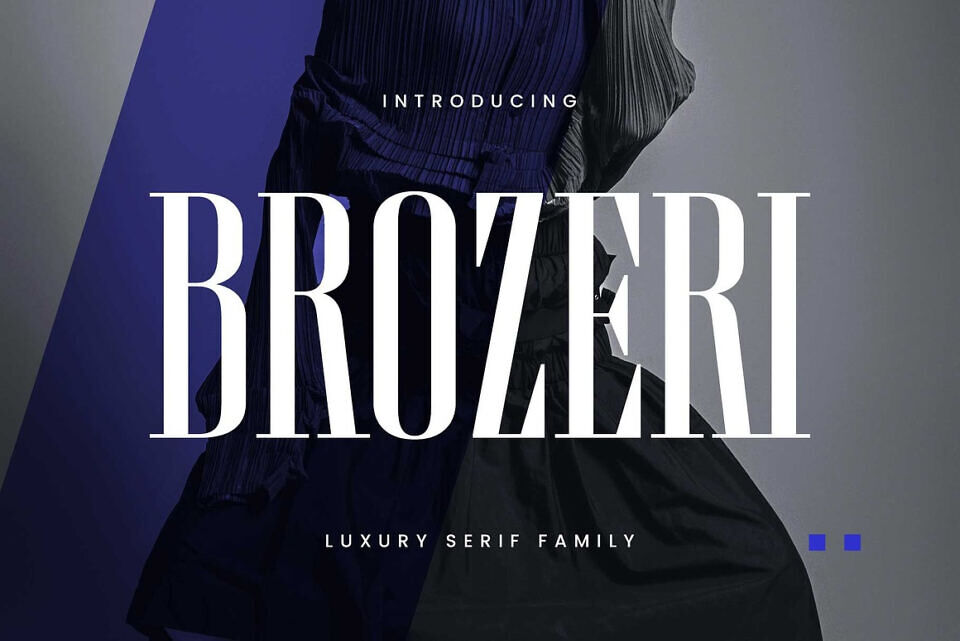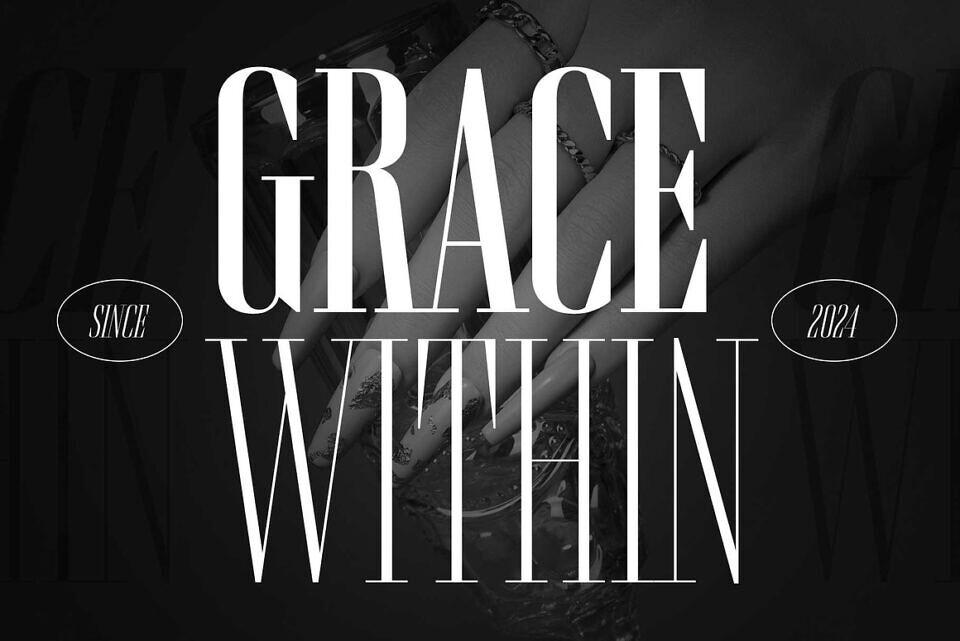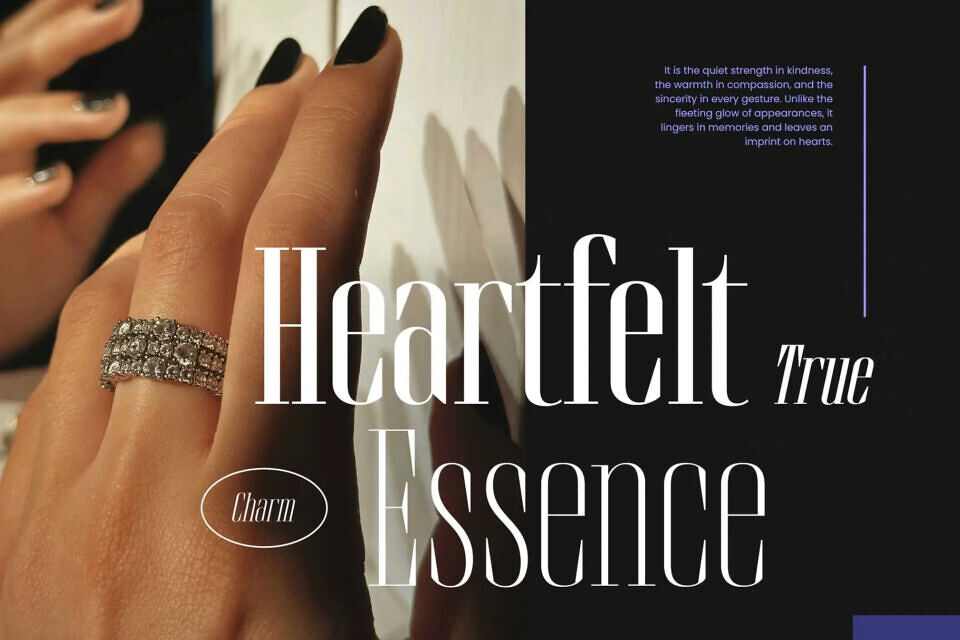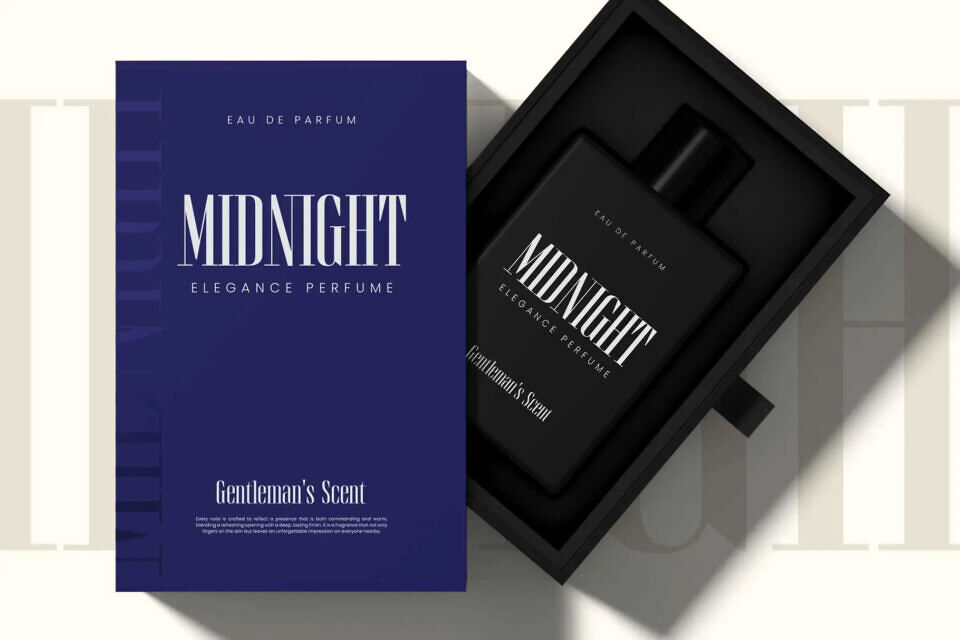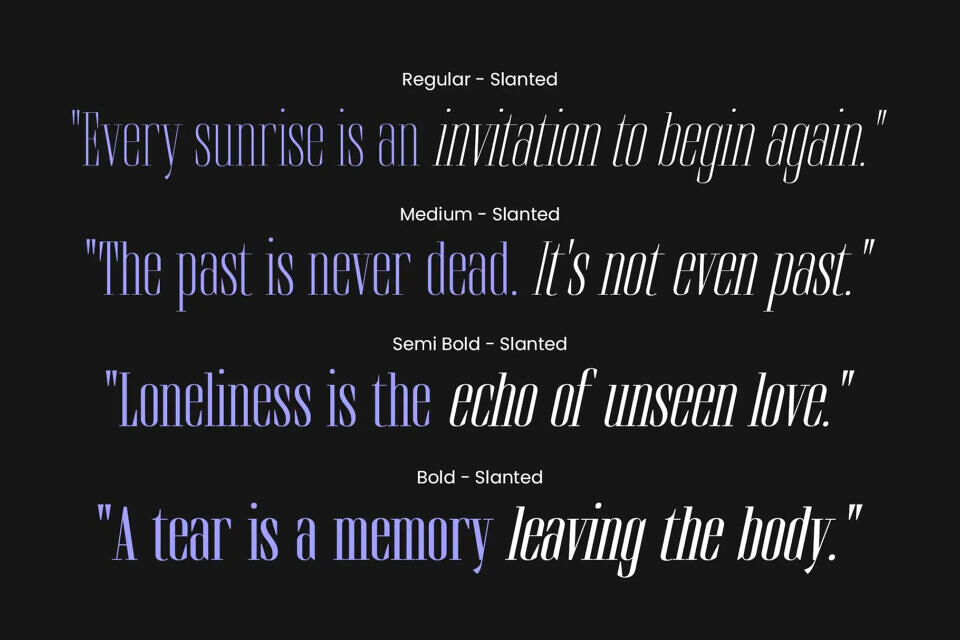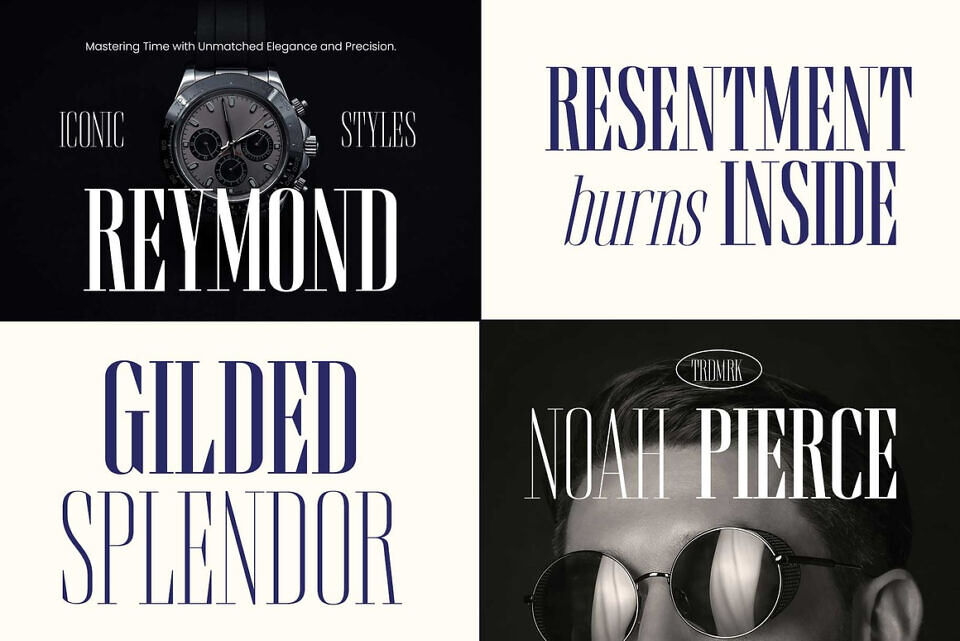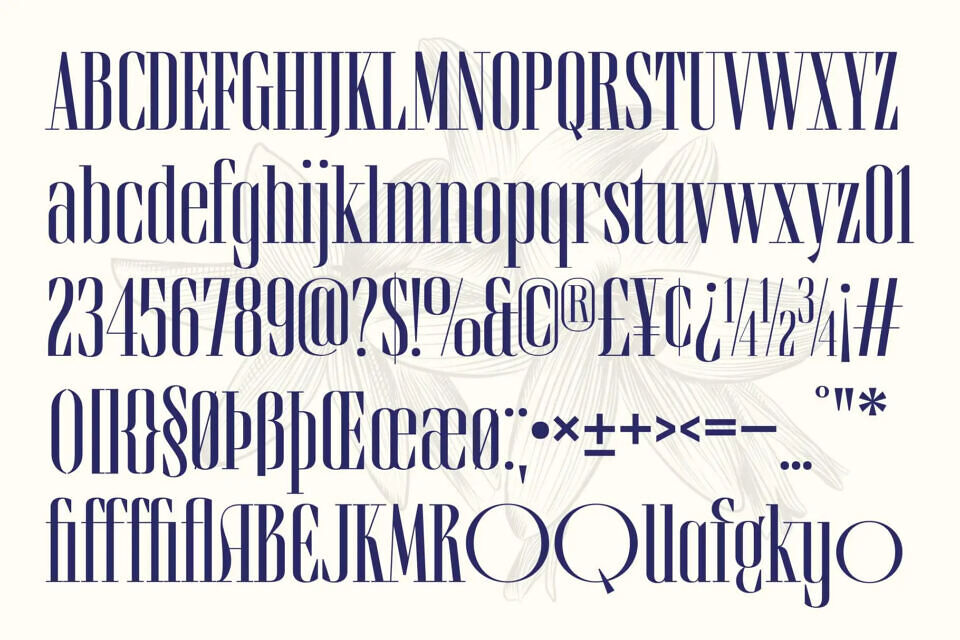
Brozeri Font
Brozeri is a condensed serif typeface with bold contrast and striking contours. Its firm, eye-catching serifs bring a sense of elegance and authority to any design.
Drawing inspiration from early 2000s typography, Brozeri is available in 4 weights with matching slanted styles—balancing confidence, casual flair, and courageous expression. Each weight carries its own character, making it perfect for headlines, labels, fashion branding, logos, posters, magazines, editorials, and more.